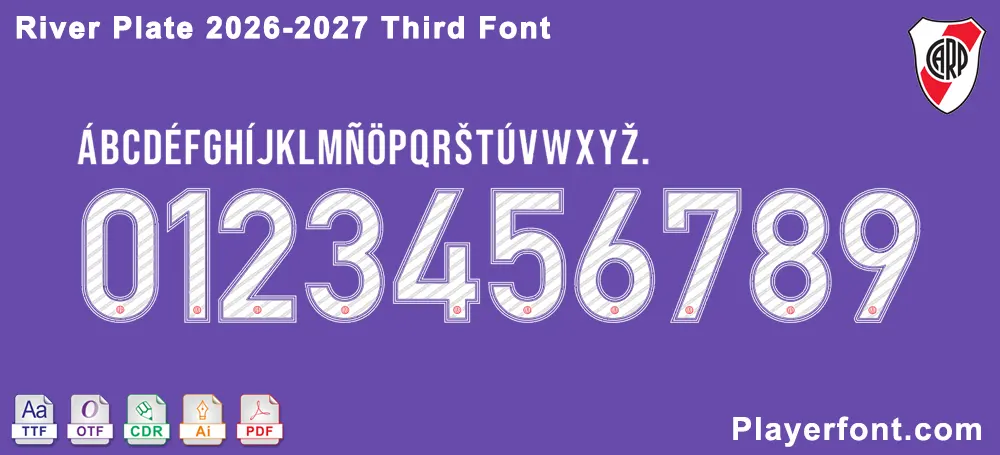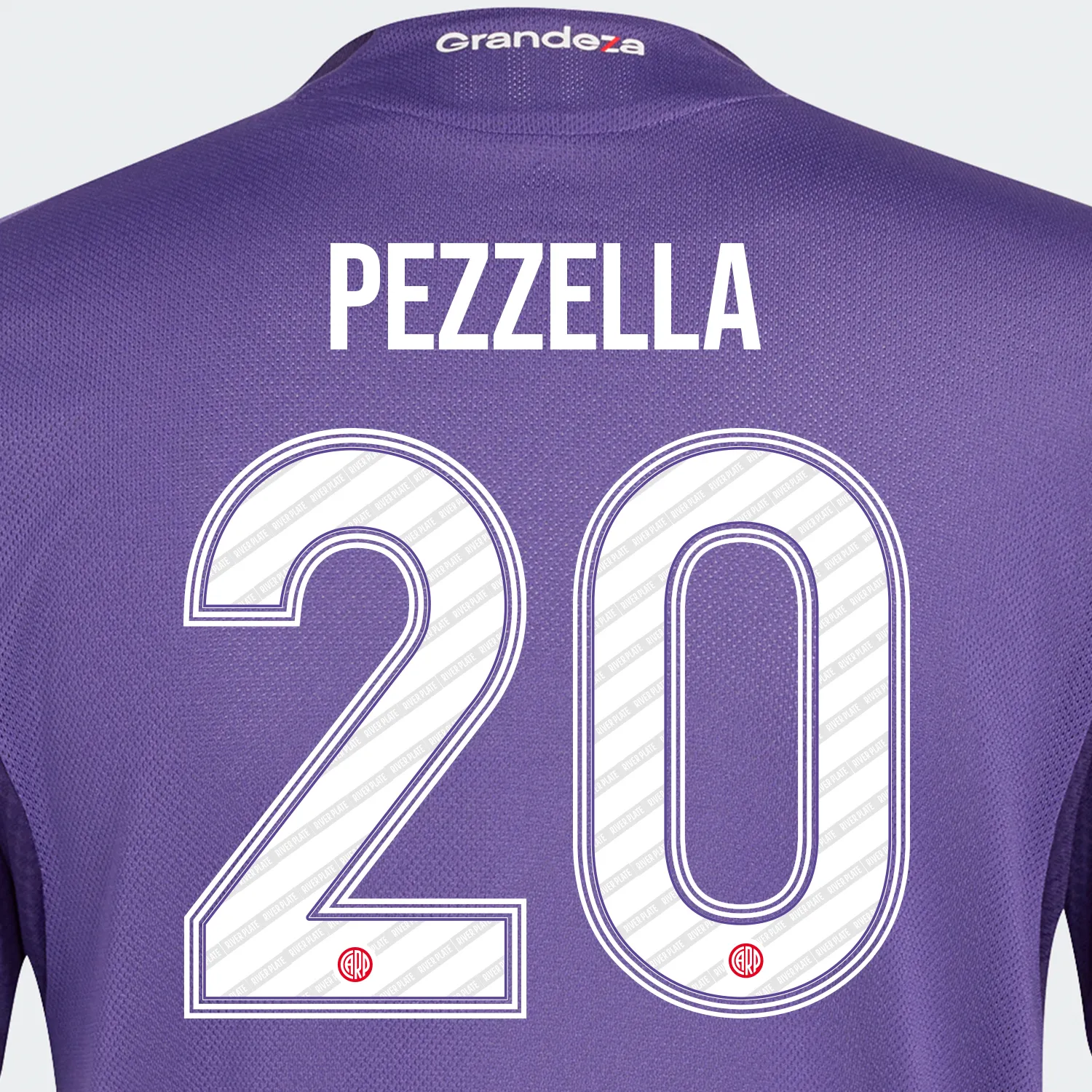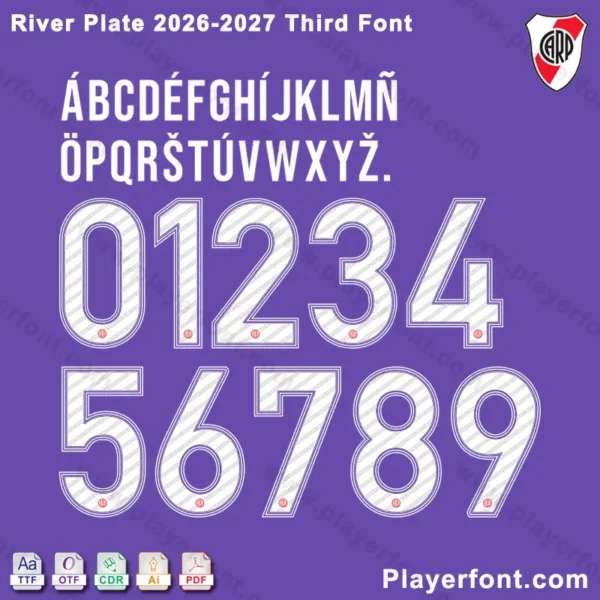
Introducing the official River Plate 2026-2027 Third Font Kit – the essential typography resource for fans, designers, and creators supporting El Millonario. This premium digital download includes versatile vector files in five professional formats:
Perfect for creating River Plate third kit-inspired designs, custom fan merchandise, matchday posters, social media graphics, banners, and personal projects. This font kit captures the unique typography of River’s 2026-2027 third identity, including special characters like Ñ, Á, É, Í, Ó, Ú, Ü for authentic Spanish rendering. The pack also includes a sample name graphic (“Grandeza Pezzella”) to demonstrate the font in action.